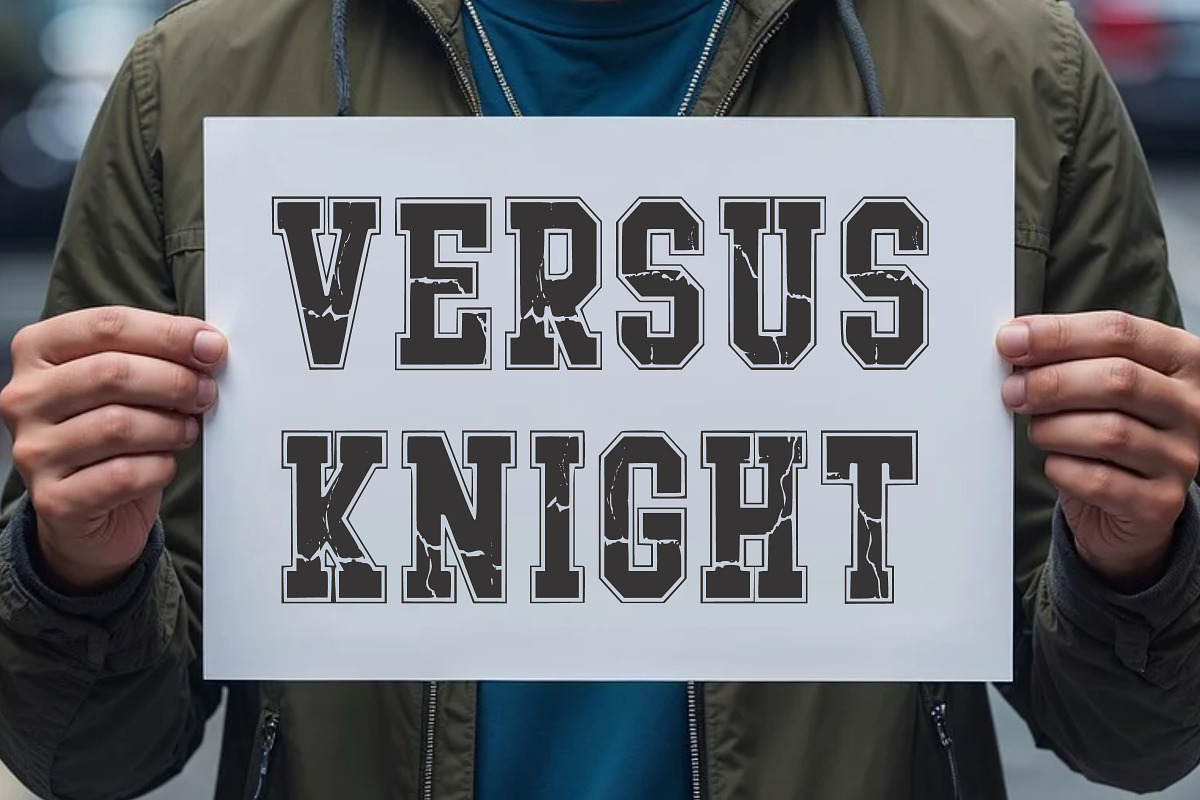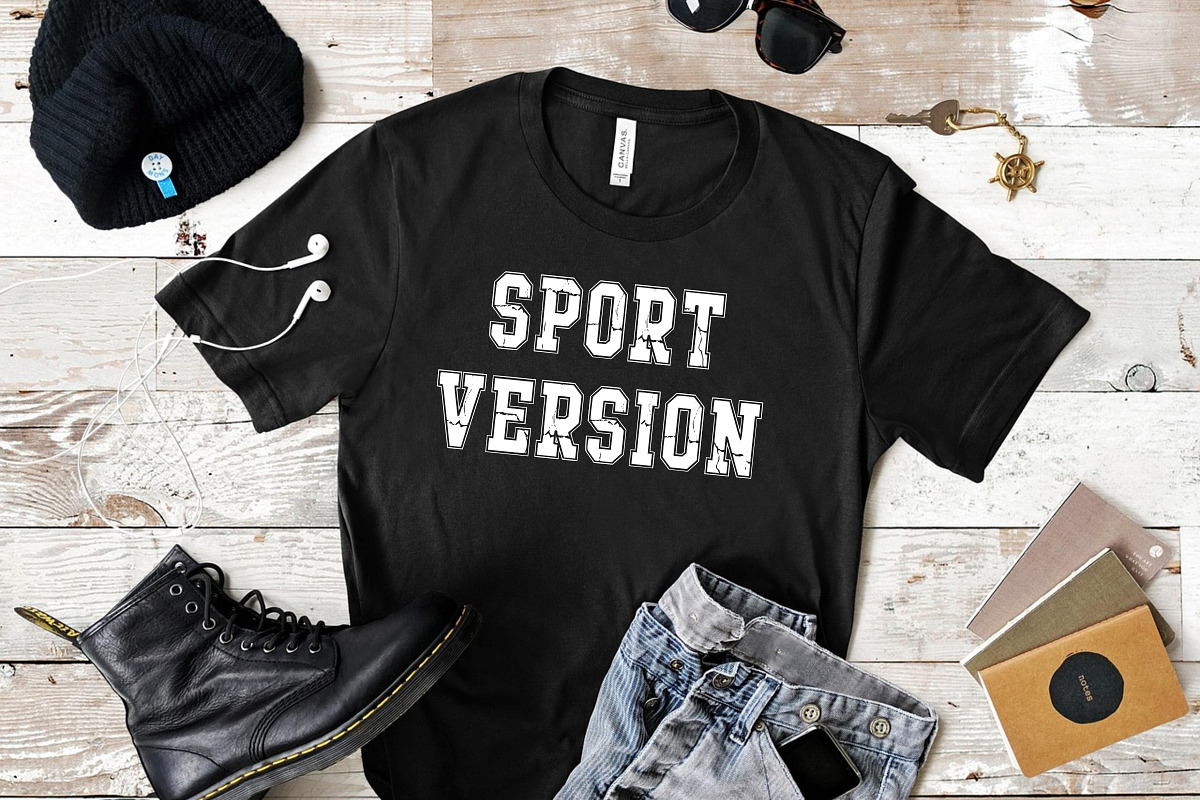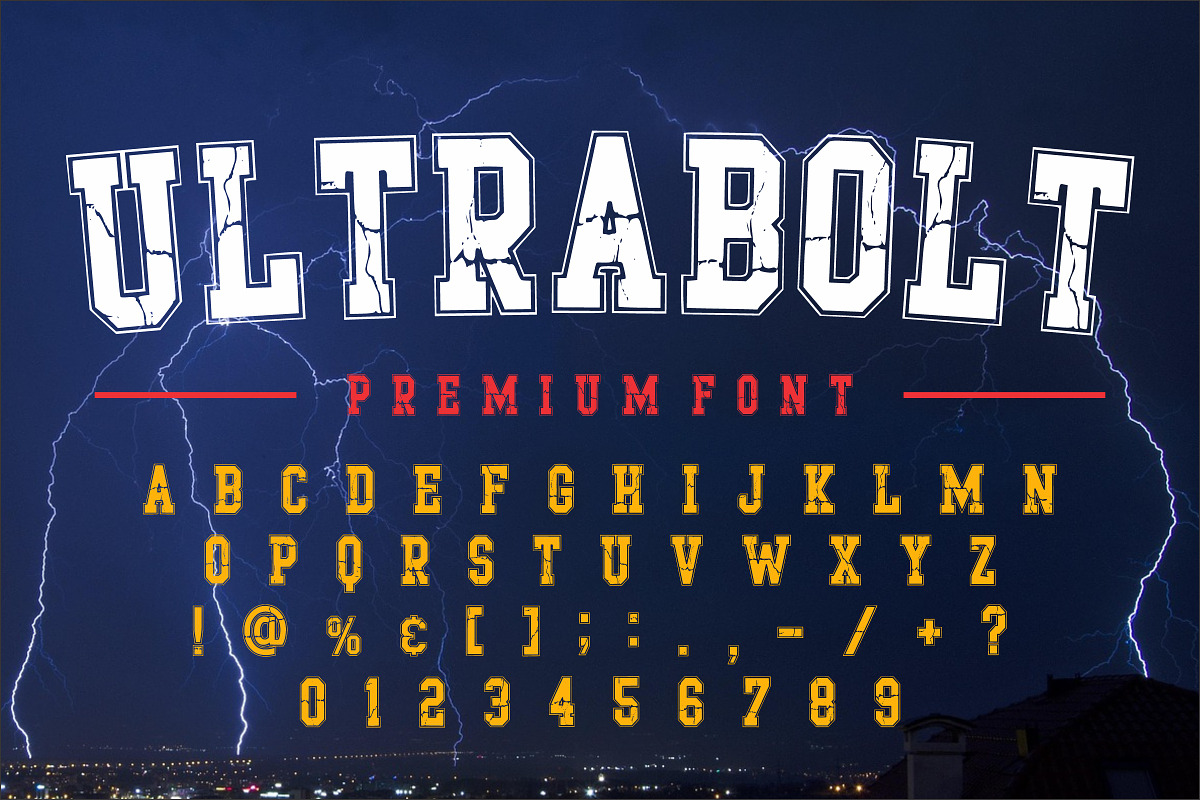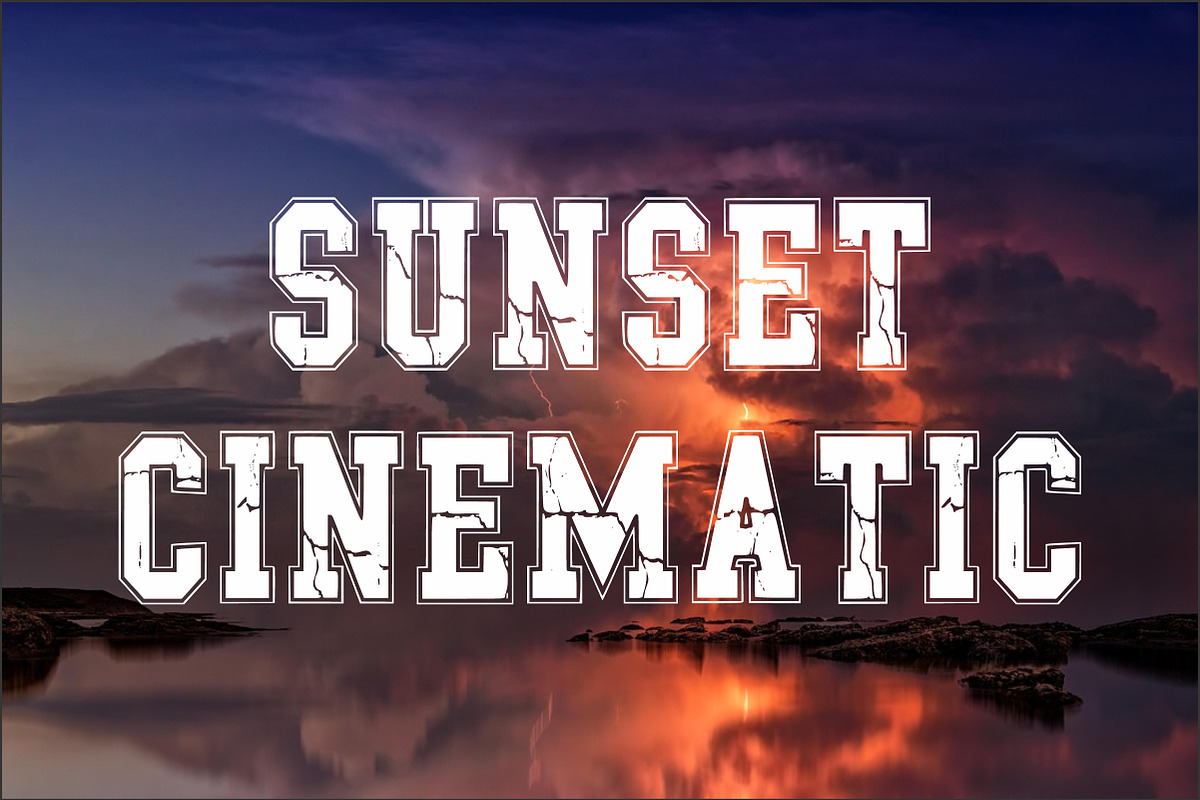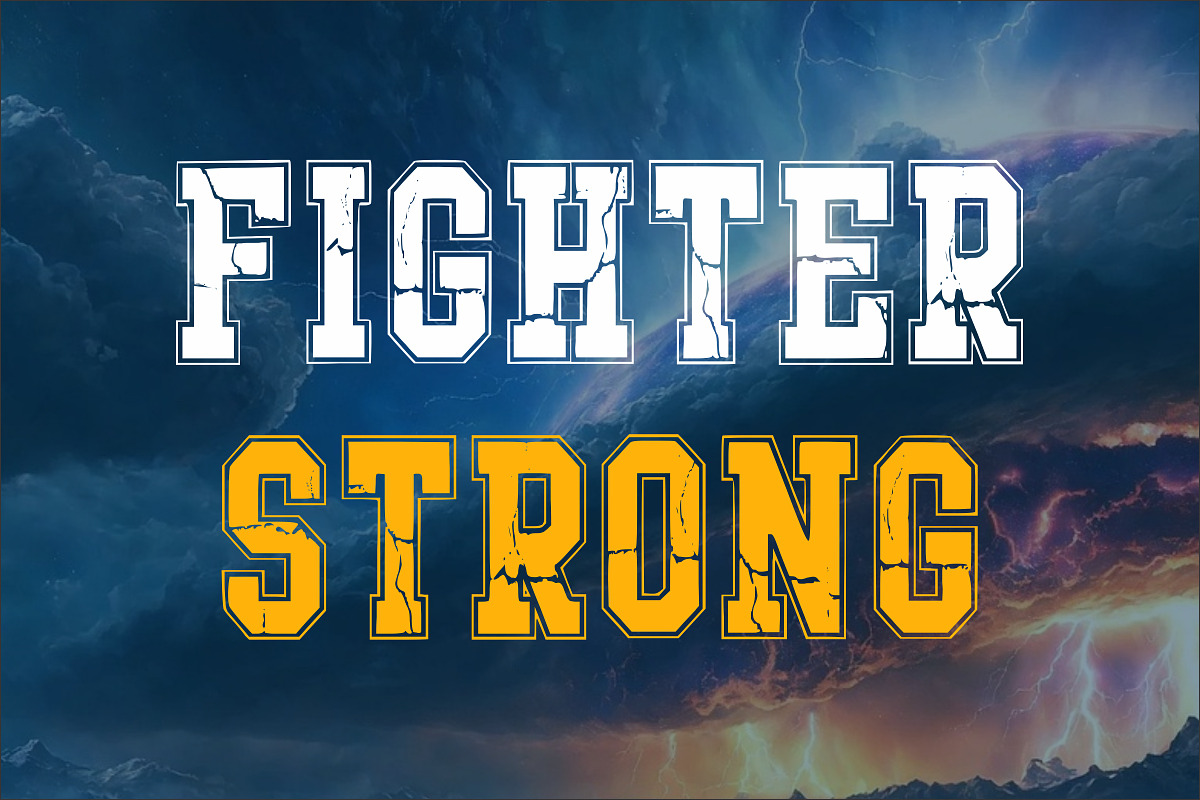
Ultra Bolt
Unleash the high-energy power of sports and collegiate typography with the ULTRA BOLT Display Font, an electrifying and robust slab-serif.
This dynamic ULTRA BOLT font is characterized by its bold, blocky letterforms, thick slab serifs, and a powerful, slightly distressed texture that gives it an authentic, worn athletic appeal. It comes in multiple styles, allowing you to layer and combine the clean and textured versions for a truly customized look that demands attention.
The sturdy structure of the ULTRA BOLT typeface makes it perfect for e-sports logos, university branding, aggressive sports apparel, team jerseys, and impactful event posters. Its high-impact presence ensures maximum visibility and energy, guaranteeing that the powerful ULTRA BOLT font family becomes your go-to choice for all designs with a competitive and energetic edge.